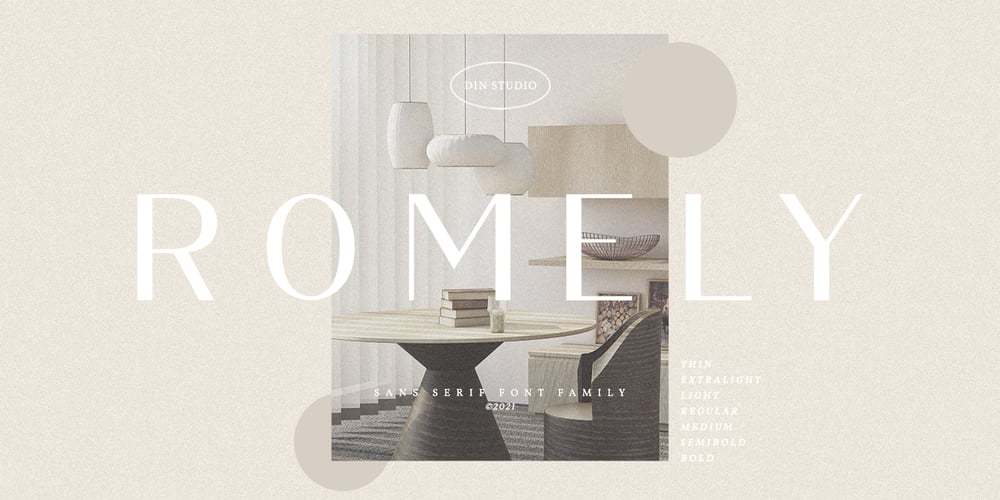
Romely Font Family was designed by Donis Miftahudin and published by Din Studio. Romely contains 7 styles and family package options. If you’re looking for a gorgeous font to attract your audiences or customers then we’ve got the font for you!Introducing Romely- A Sans Serif FontThis handmade font typeface with modern style looks very interesting for loads of different projects and promotions. It is perfect to be used on your website, for your social media branding, Pinterest banners, printed products, and more!Features: Multilingual Support PUA Encoded Numerals and Punctuation Thank you for downloading premium fonts from Din Studio